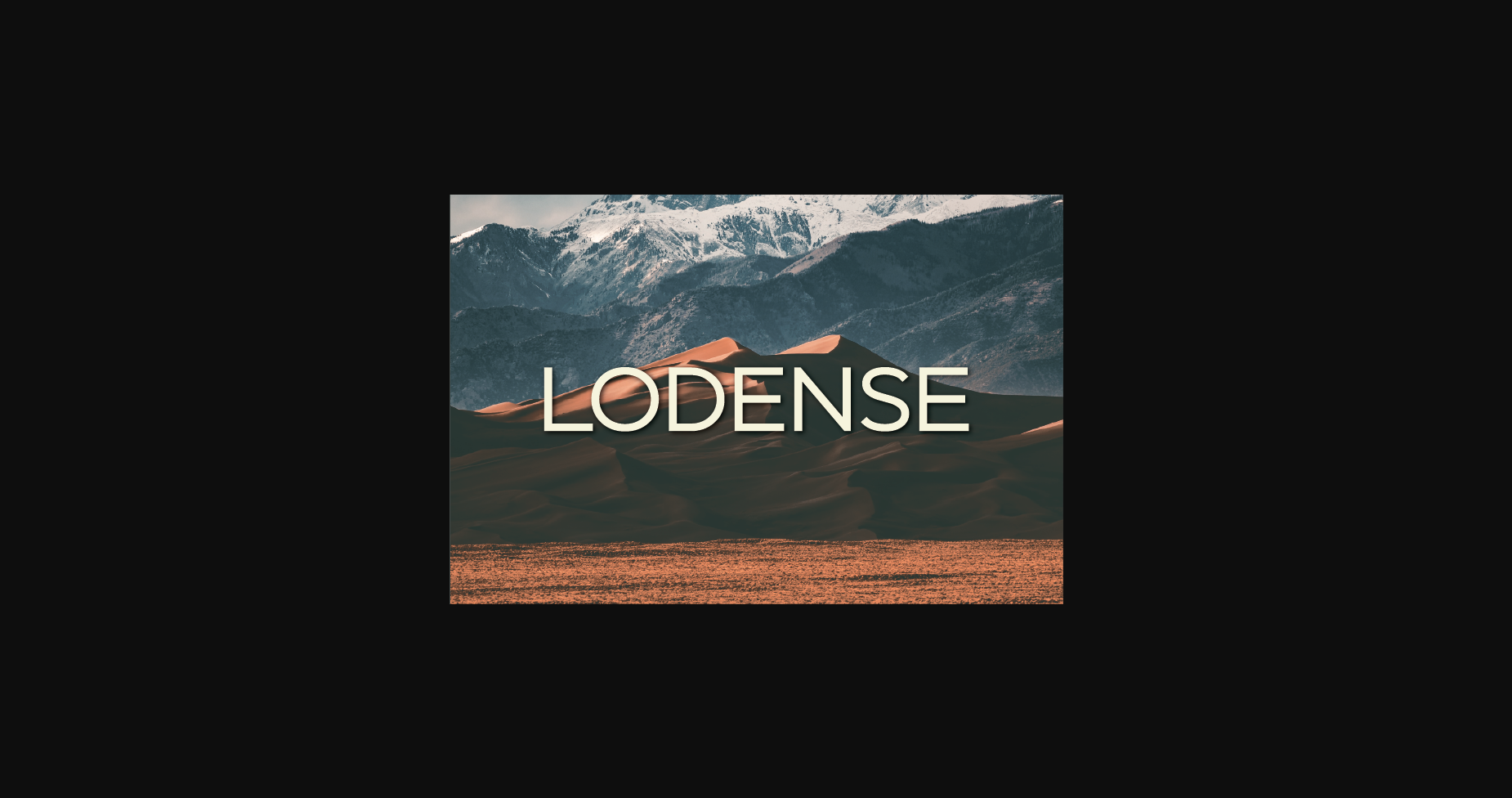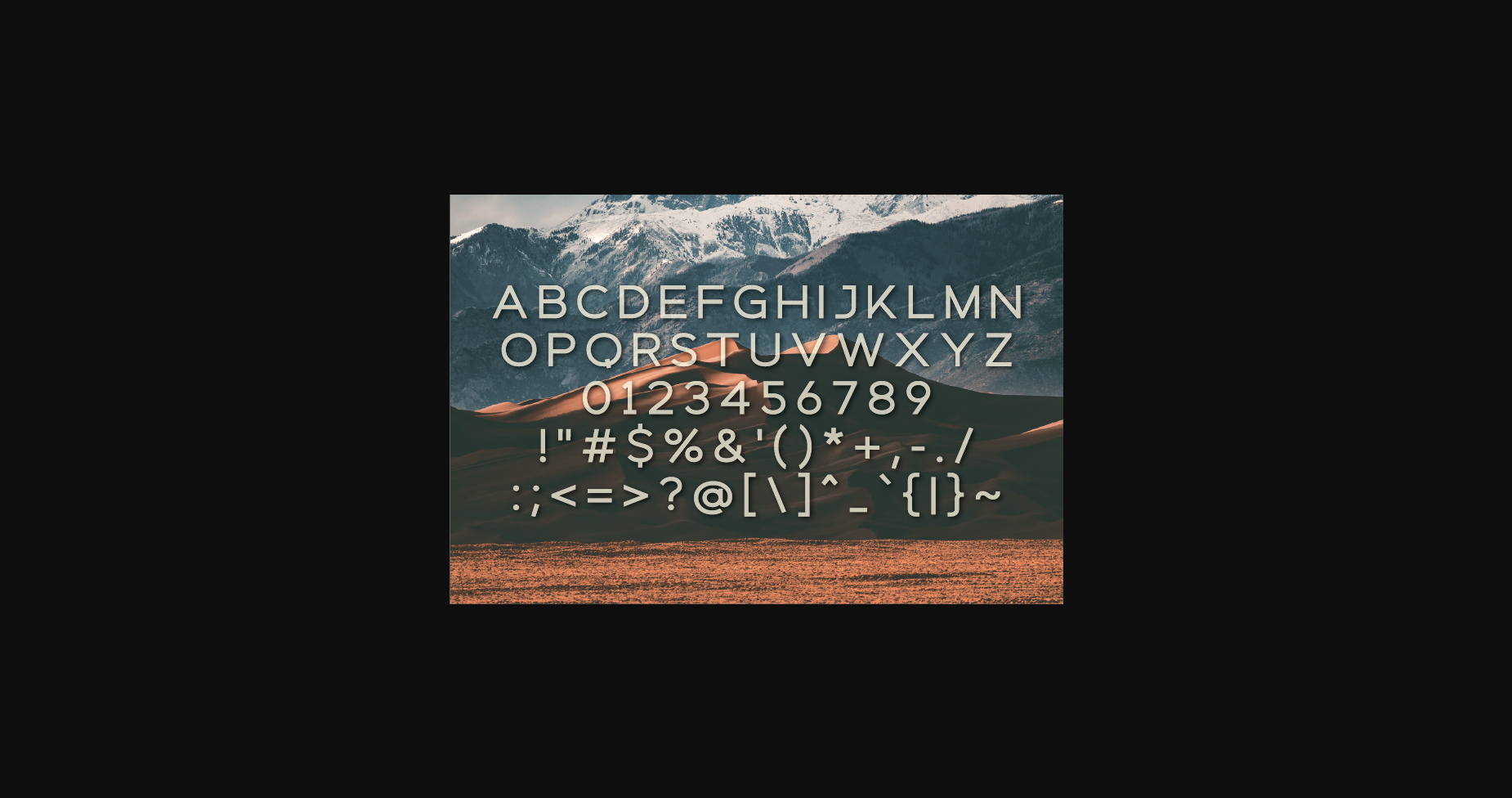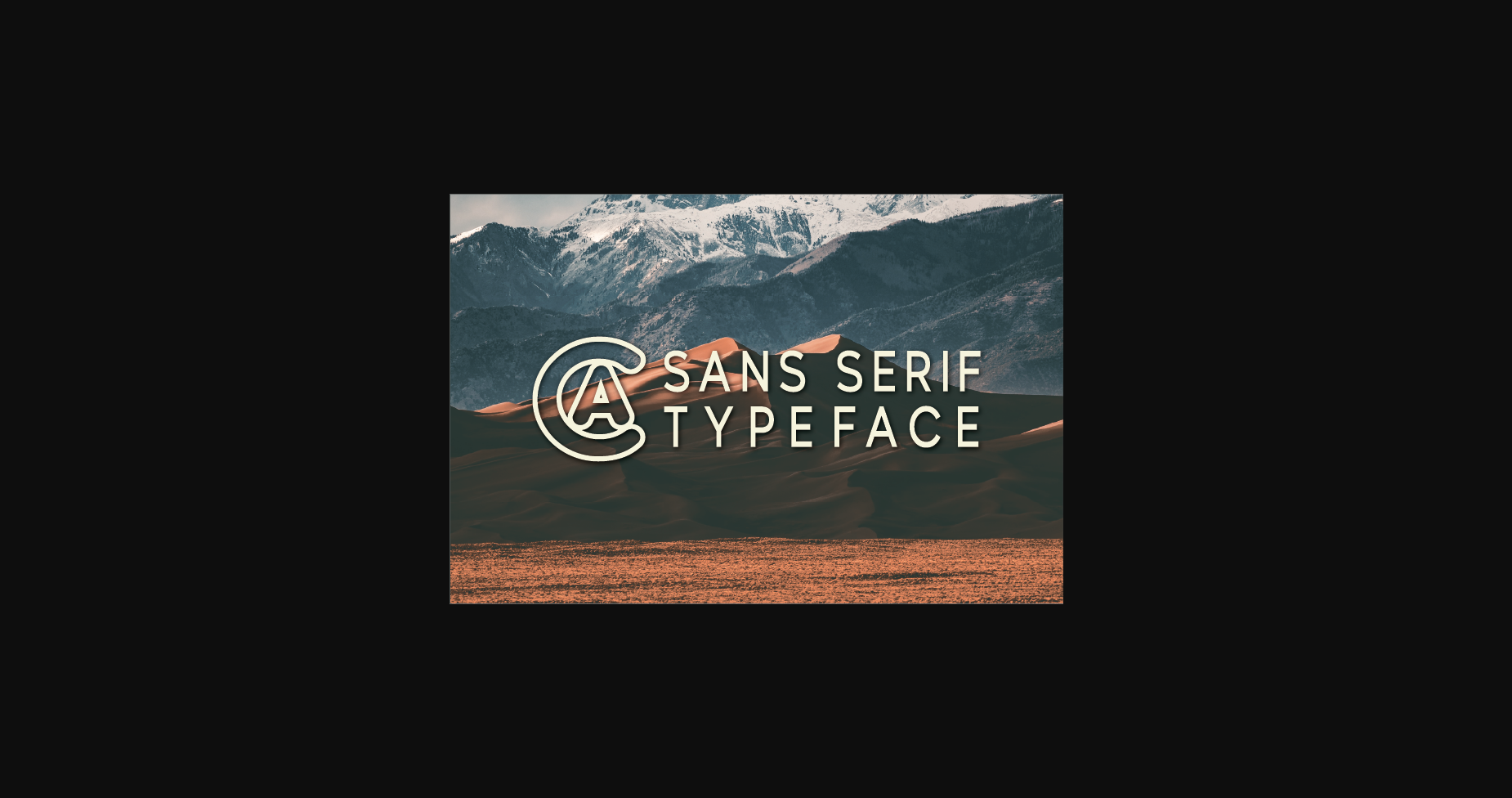
About Lodense Font
Introducing Lodense, a modern and classy sans serif typeface.
An extremely versatile font, perfect for logos, weddings, invitations, quotes, advertisements, print, magazines, and more!